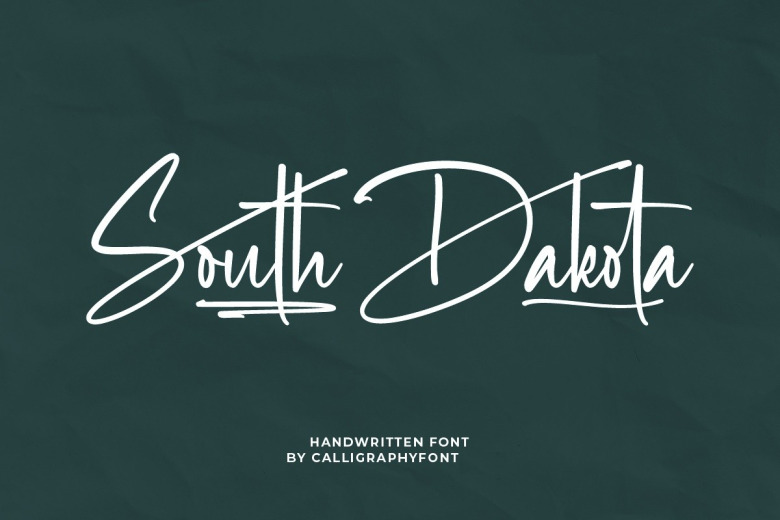
South Dakota Font
South Dakota Font is a high quality Handwriting font. Featuring characters that dance along the baseline, this font will add a luxury spark to any design project that you wish to create!
South Dakota Handwritten Font